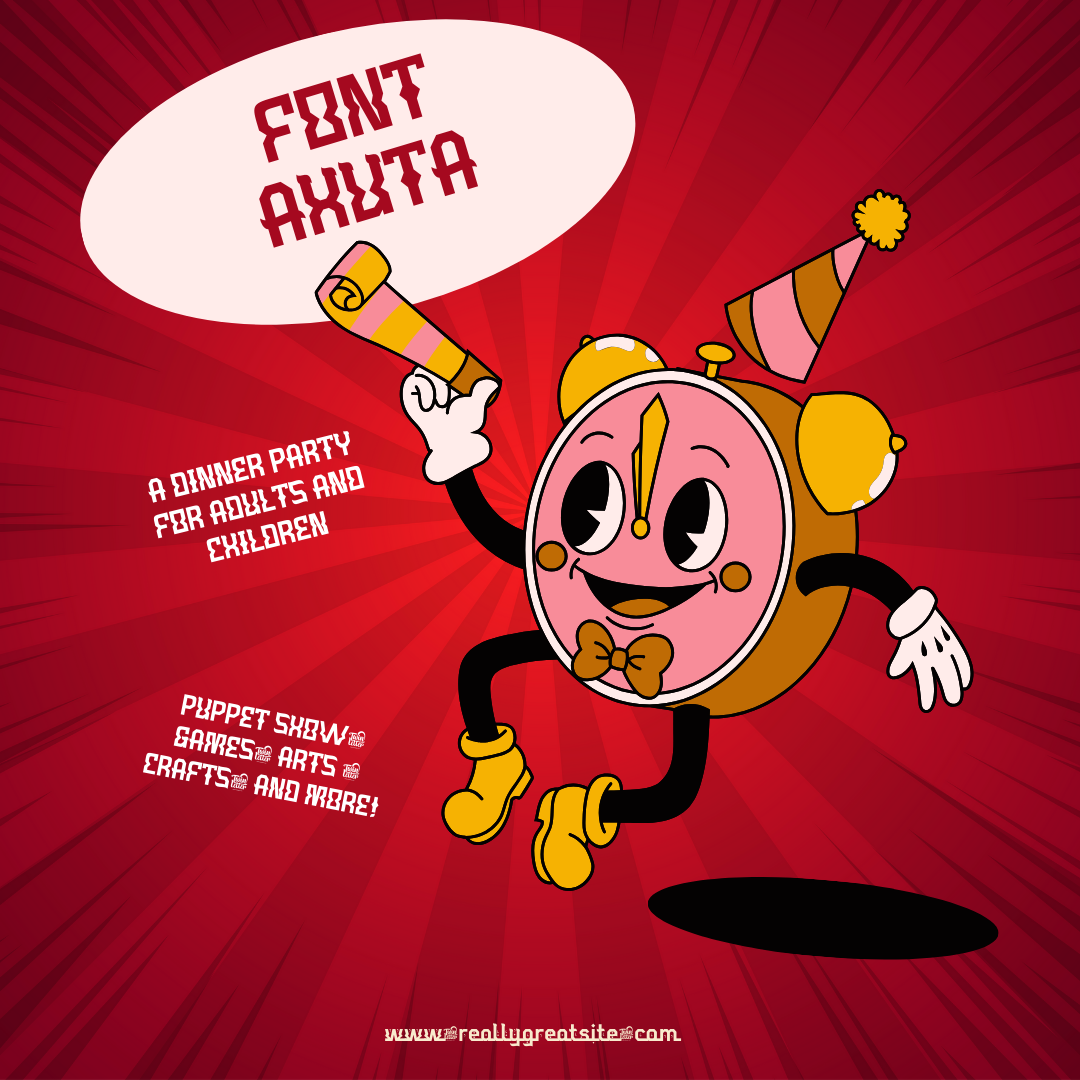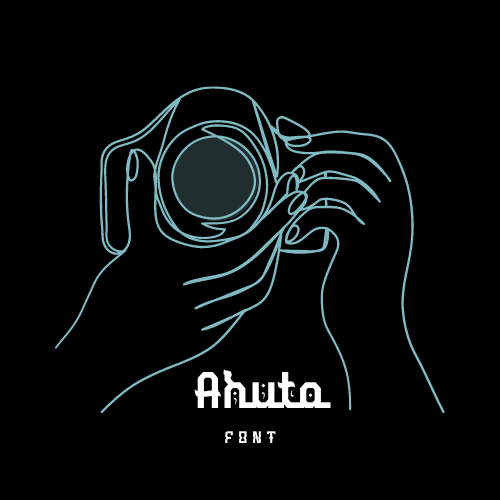
Ahuta Font : Free Font Download
This Font empowers you to effortlessly produce designs of top-notch quality.
It offers a wide array of styles to suit your project requirements. The font includes both uppercase and lowercase letters, along with alternate characters featuring diverse shapes.
With its Arabic Style essence, you can effortlessly craft professional designs that exude sophistication. Utilize this font to achieve optimal outcomes in your creative endeavors.